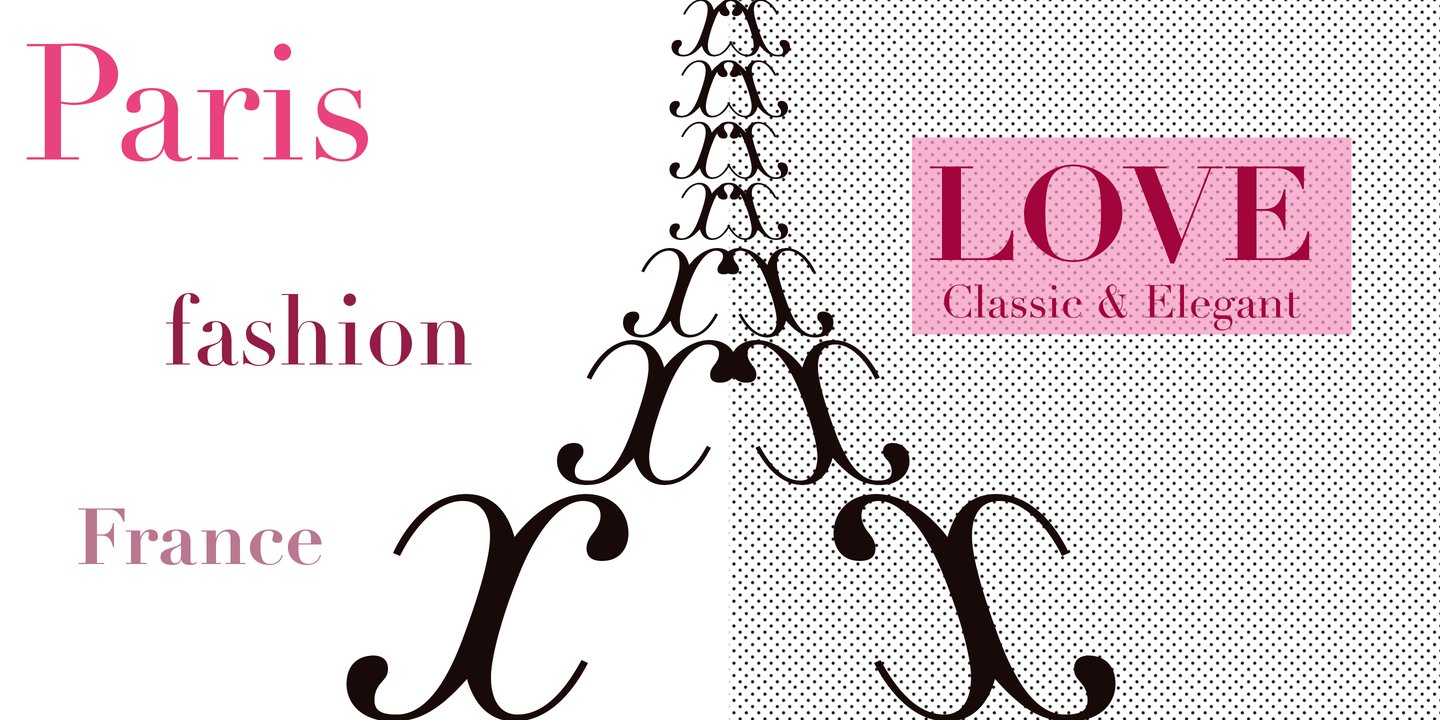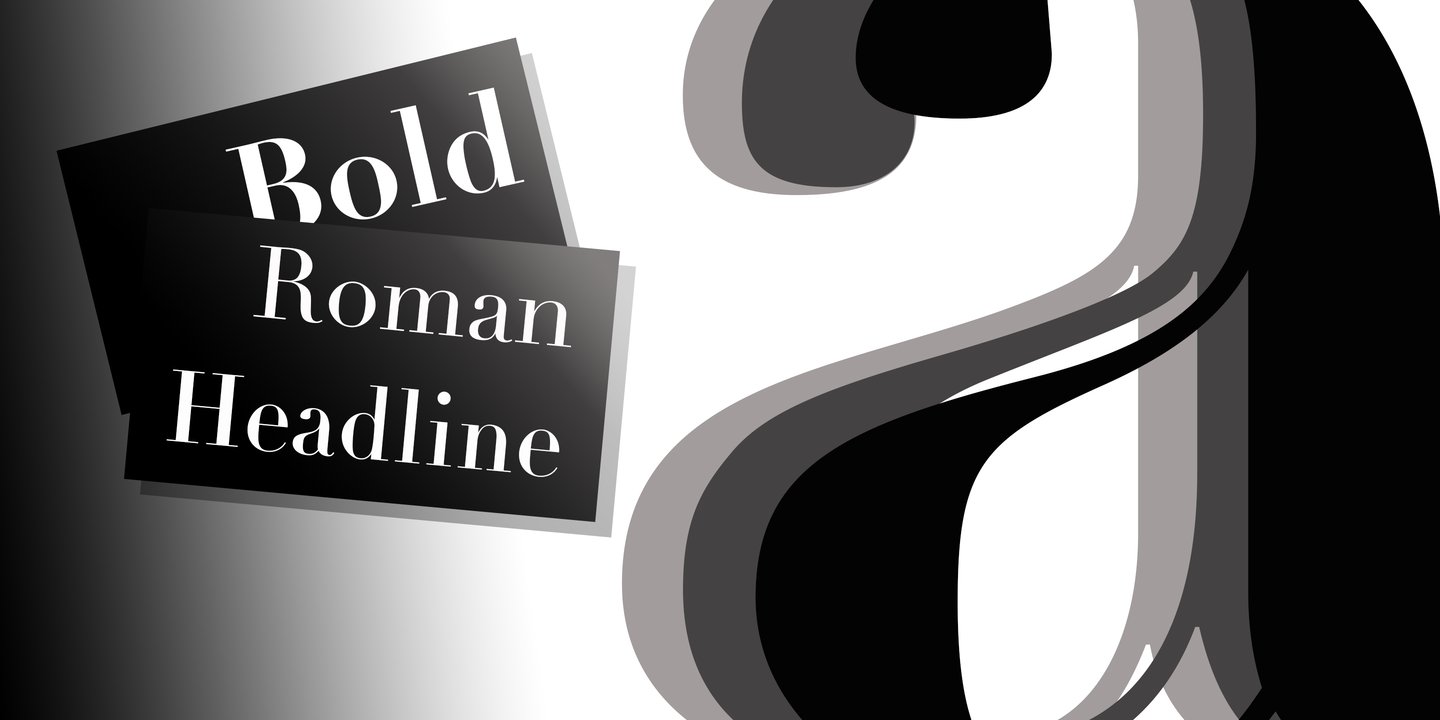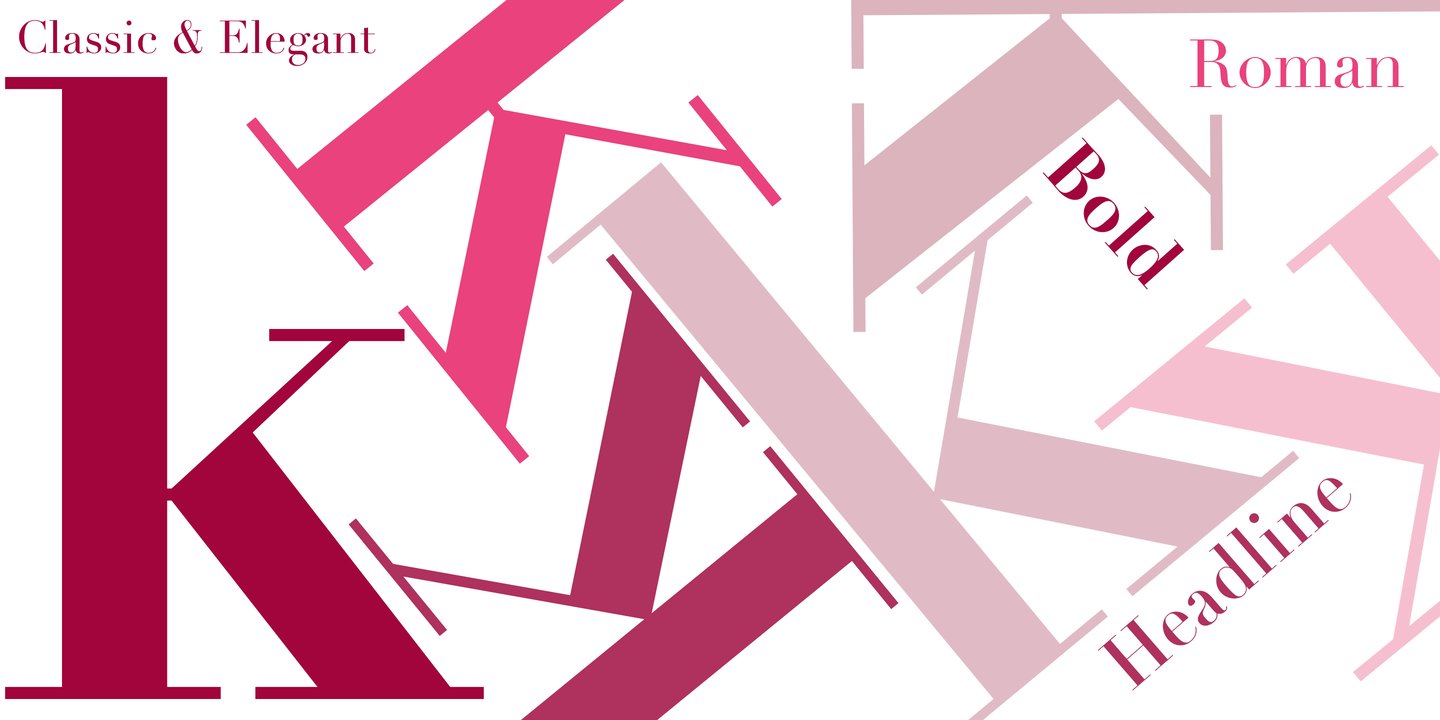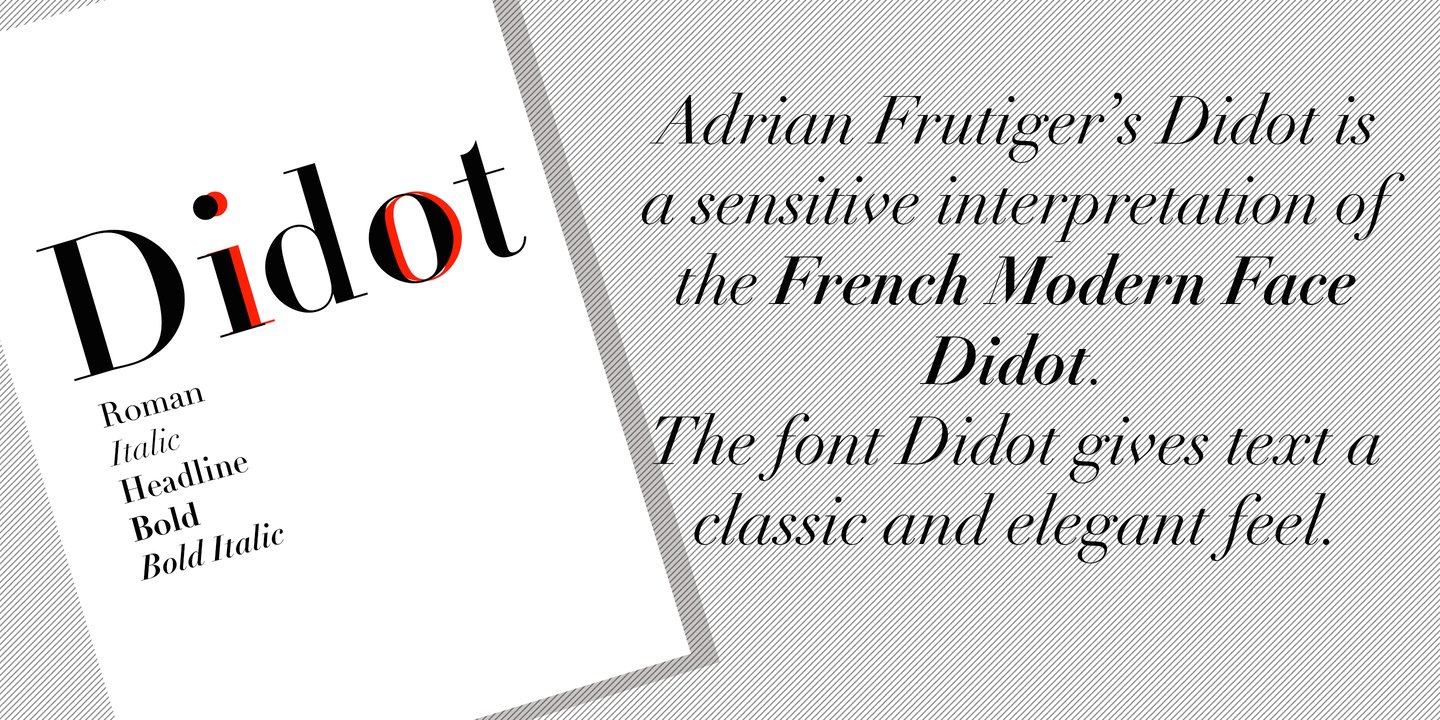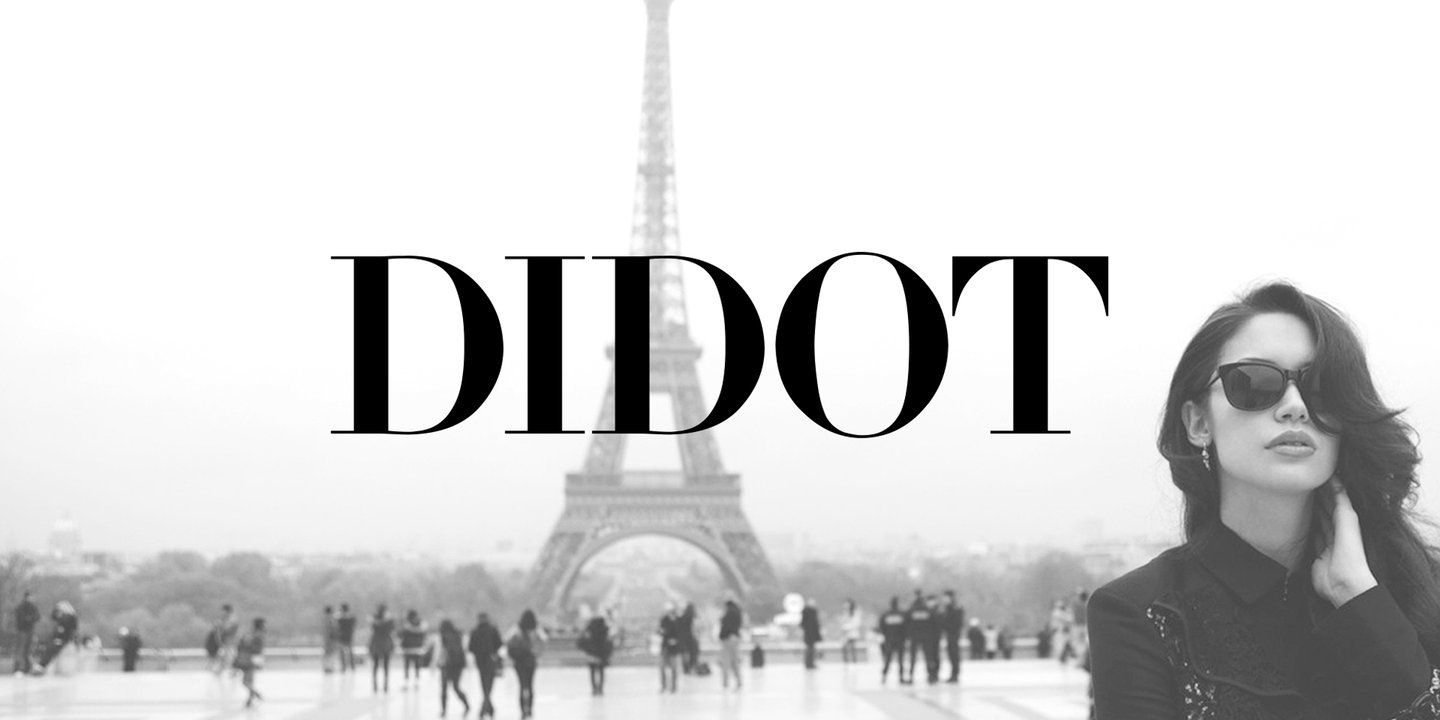
Linotype Didot Pro Headline Roman
For about 100 years in the eighteenth and nineteenth centuries, several members of the Didot family were active in Paris as designers. They were also printers, publishers, typefounders, inventors, writers and intellectuals. Around 1800, the Didot family owned the most important print shop and font foundry in France. Pierre Didot published books and prints set in typefaces designed and punchcut by his brother, Firmin Didot. The statuesque, clear forms of the Didot alphabets are representative of the time, and are quite similar to those designed by Giambattista Bodoni around the same time in Italy. These types are in the style known as "modern" - meaning they are characterized by extreme vertical stress and fine hairlines contrasted by bold main strokes. Linotype Didot™ was drawn by Adrian Frutiger in 1991, and is based on the fonts cut by Firmin Didot between 1799 and 1811. Frutiger also studied the Didot types in a book printed by the Didots in 1818, "La Henriade" by Voltaire. This beautifully drawn family has 12 weights including Old style Figures, a headline version, and superb graphic ornaments. Linotype Didot is the right choice for elegant book and magazine designs, as well as advertising with a classic touch."